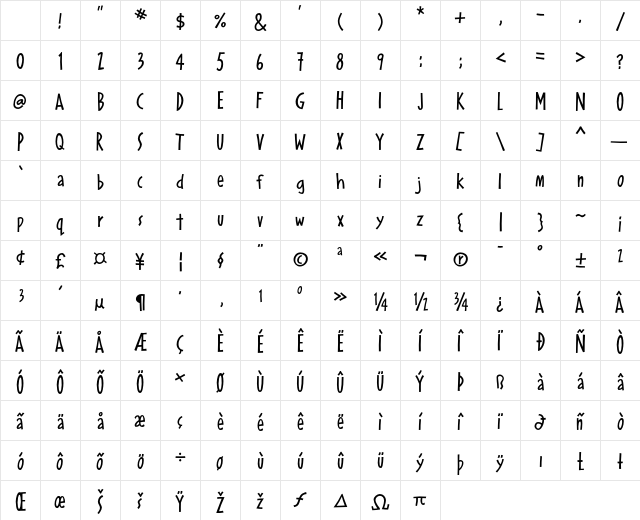
Complete SmileICG Medium glyph index. Displaying only characters natively supported by SmileICG Medium font.
SmileICG is a composed and adaptable typeface that performs quietly and consistently across a wide range of design contexts.